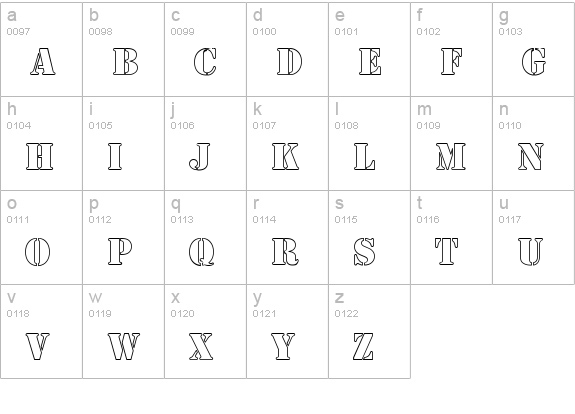
Rudy Hollow font is a unique and elegant typeface that combines modern style with a touch of sophistication. Its hollow design adds a contemporary feel to any project, making it perfect for logos, headlines, and branding materials. The clean lines and subtle curves of Rudy Hollow give it a sleek and professional look that is sure to make your text stand out. Best of all, Rudy Hollow is completely free to download at FontsMarket.com, allowing you to add this stunning font to your design toolkit at no cost. Whether you're a seasoned designer or just starting out, Rudy Hollow is a versatile and eye-catching font that will elevate your projects to the next level. Don't miss out on this fantastic font - download it today and start creating beautiful designs with ease!